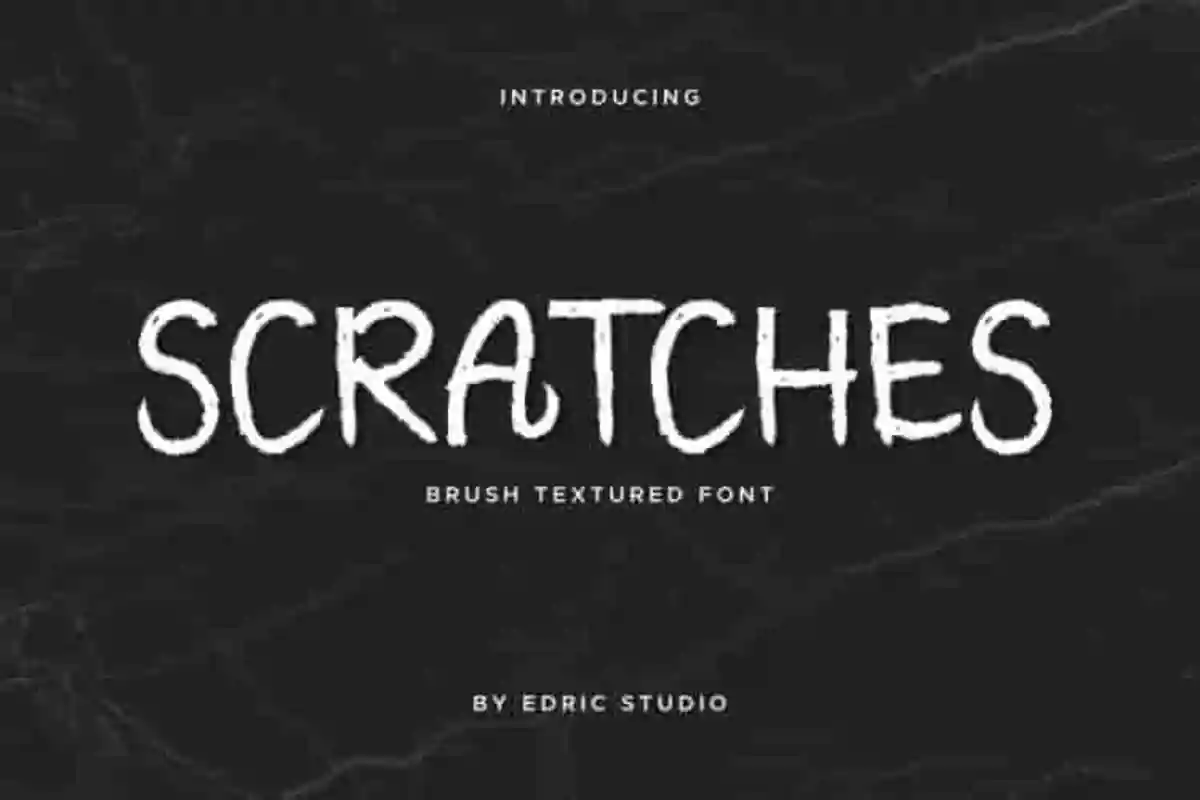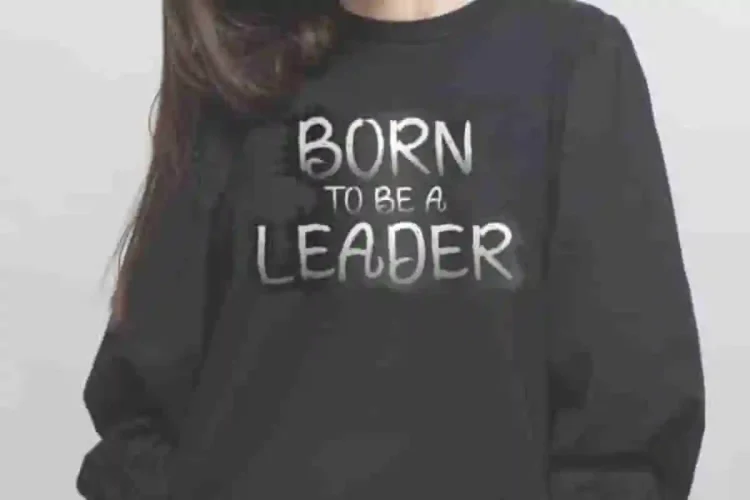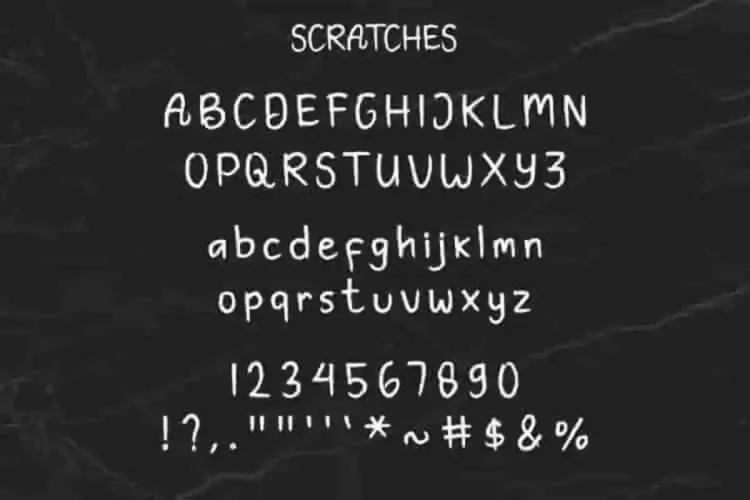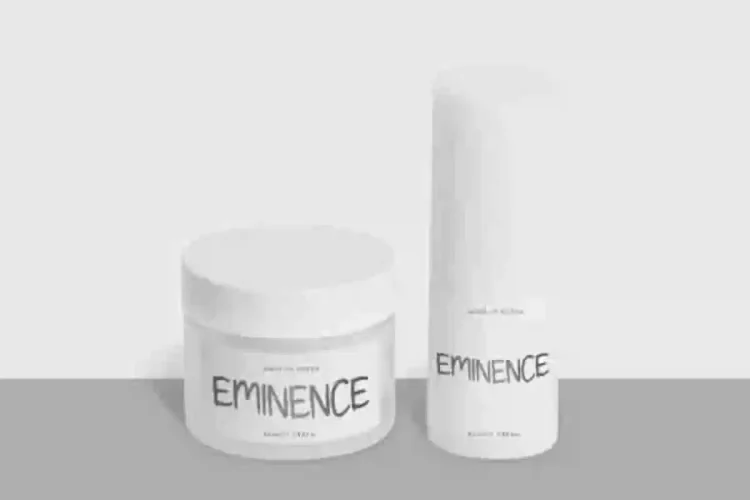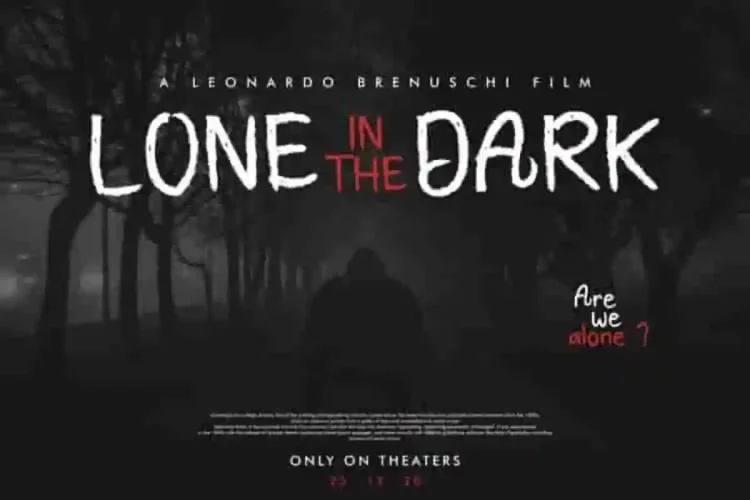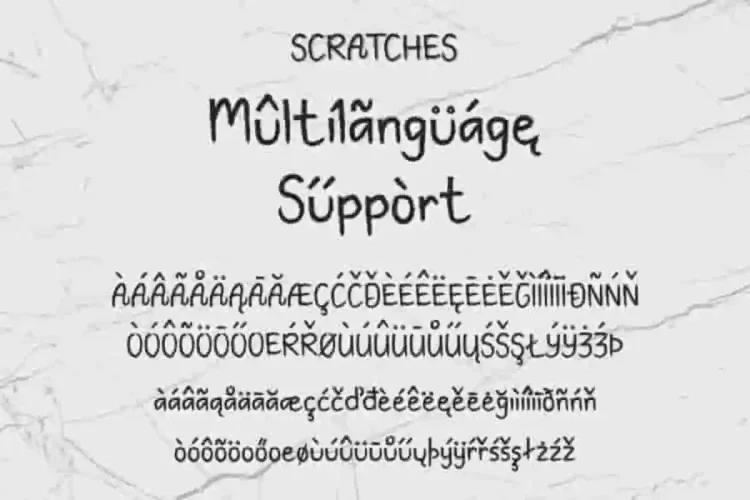
Scratches Brush Script Font
Scratches Brush Font is a textured brush script typeface with unique brush style. This font has a stunning characters set, perfectly managed with well spaced and kerning. The theme style of this font will horror, movie, games, vintage and classic brush style. This is a script brush display font, handcrafted from our Studio here in, Indonesia. The artists/designers of this typeface is Ali and Sarah.
Scratches Brush Font will be great for any projects including : branding, logo, stationery, business card, signage, flyer, brochure etc. Almost all industries will be match for this typeface: events, music video, makeup artist, travel, promotions, musician, magician etc.